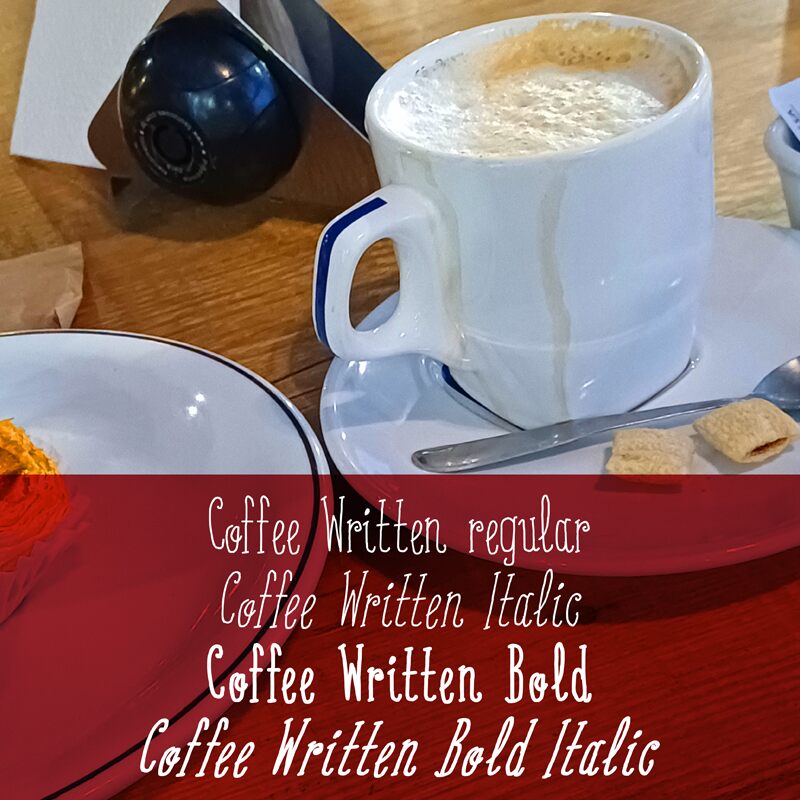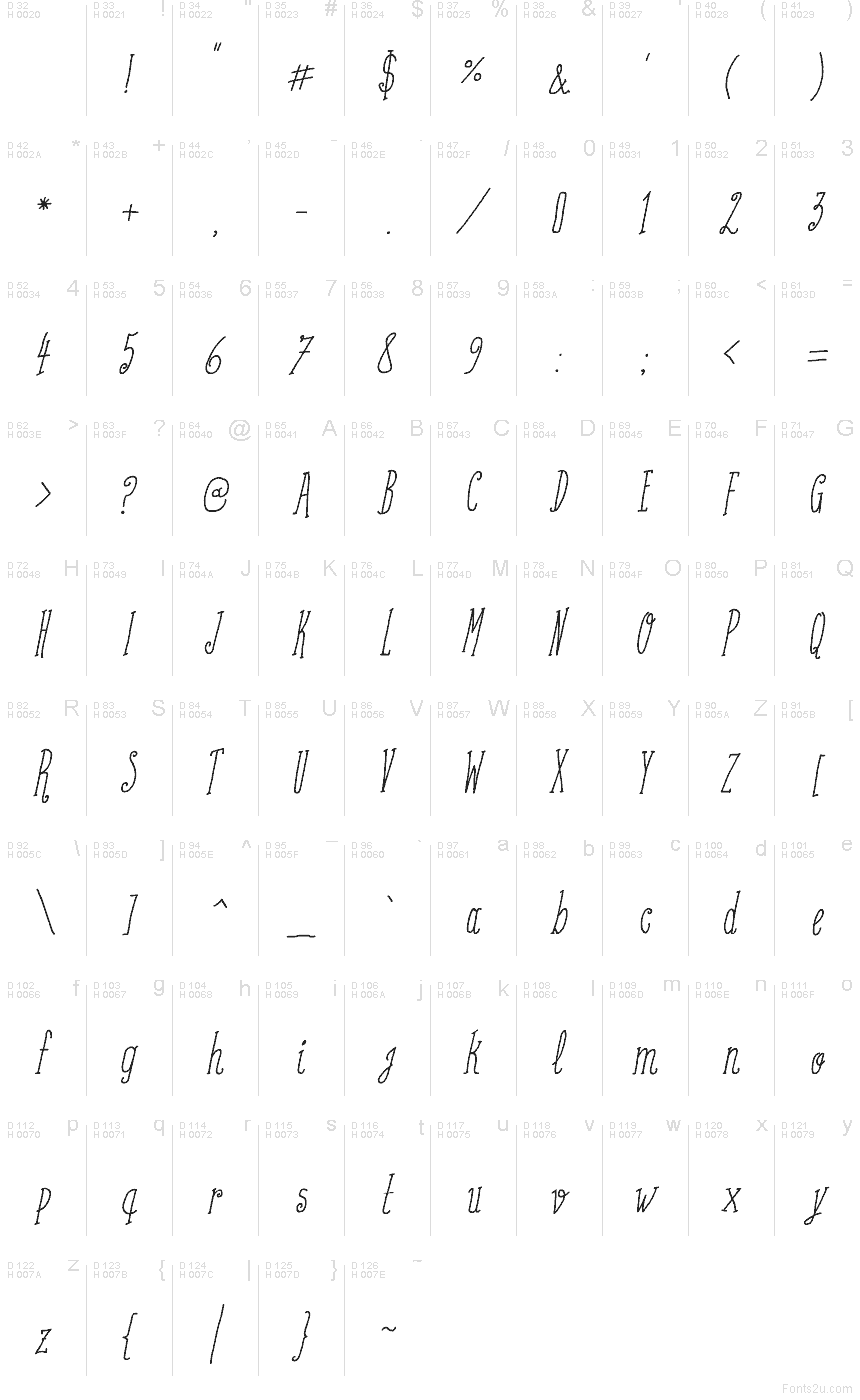
Coffee Written Italic
Coffee Written Italic by Galdino Otten is a free handwritten font whose rhythm comes from tall, springy strokes and loose pen-drawn curves. The repeated looped tops and slightly uneven line give the lettering a casual notebook pace, so it feels improvised rather than polished.
That easy handwritten movement makes sense on cafe menus, chalkboard-style posters, packaging labels, quote graphics, and social posts that need a personal touch. Short headlines and names benefit most, since the long upright strokes and airy curves give a few words enough character to carry the layout without turning formal.